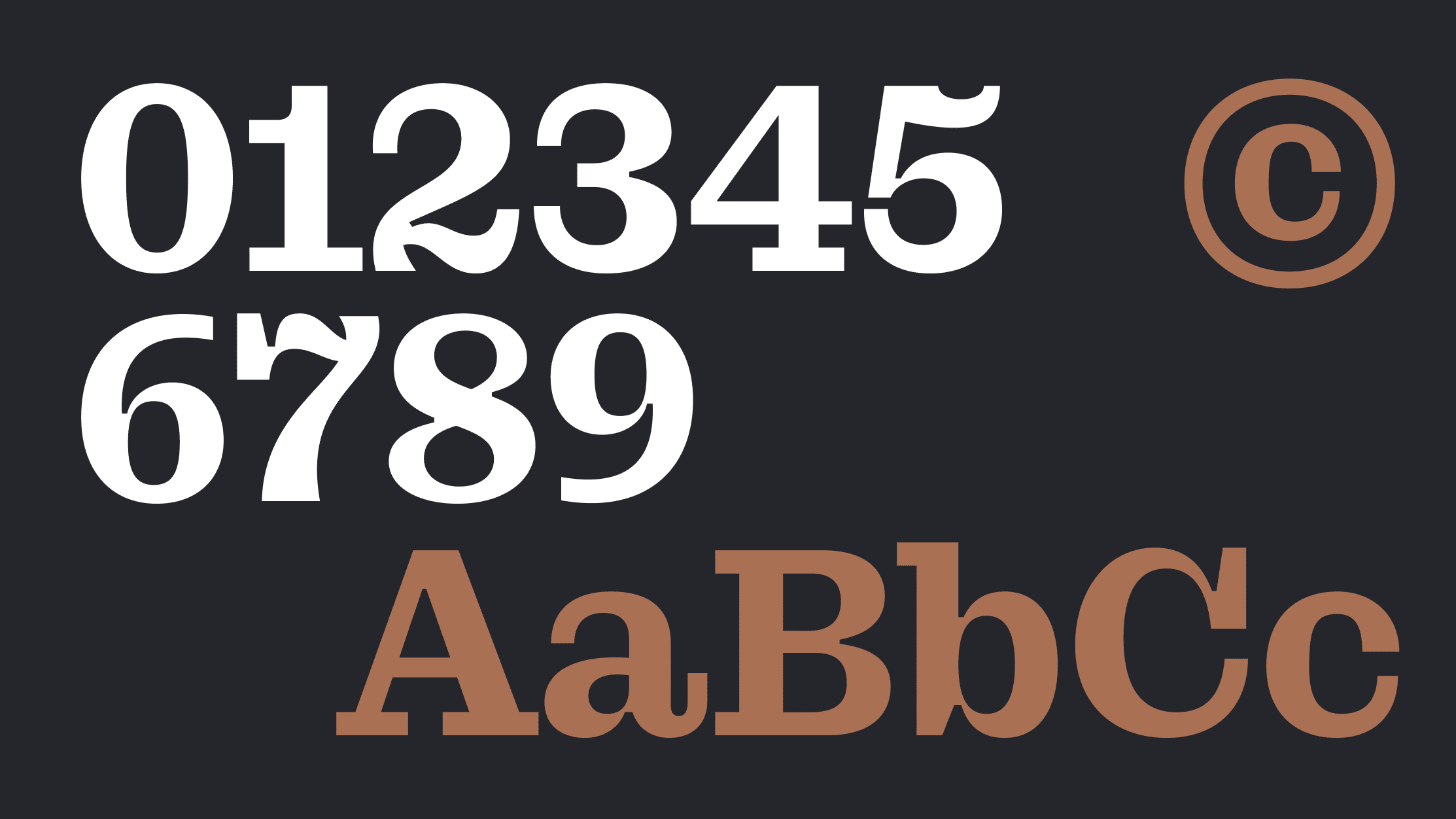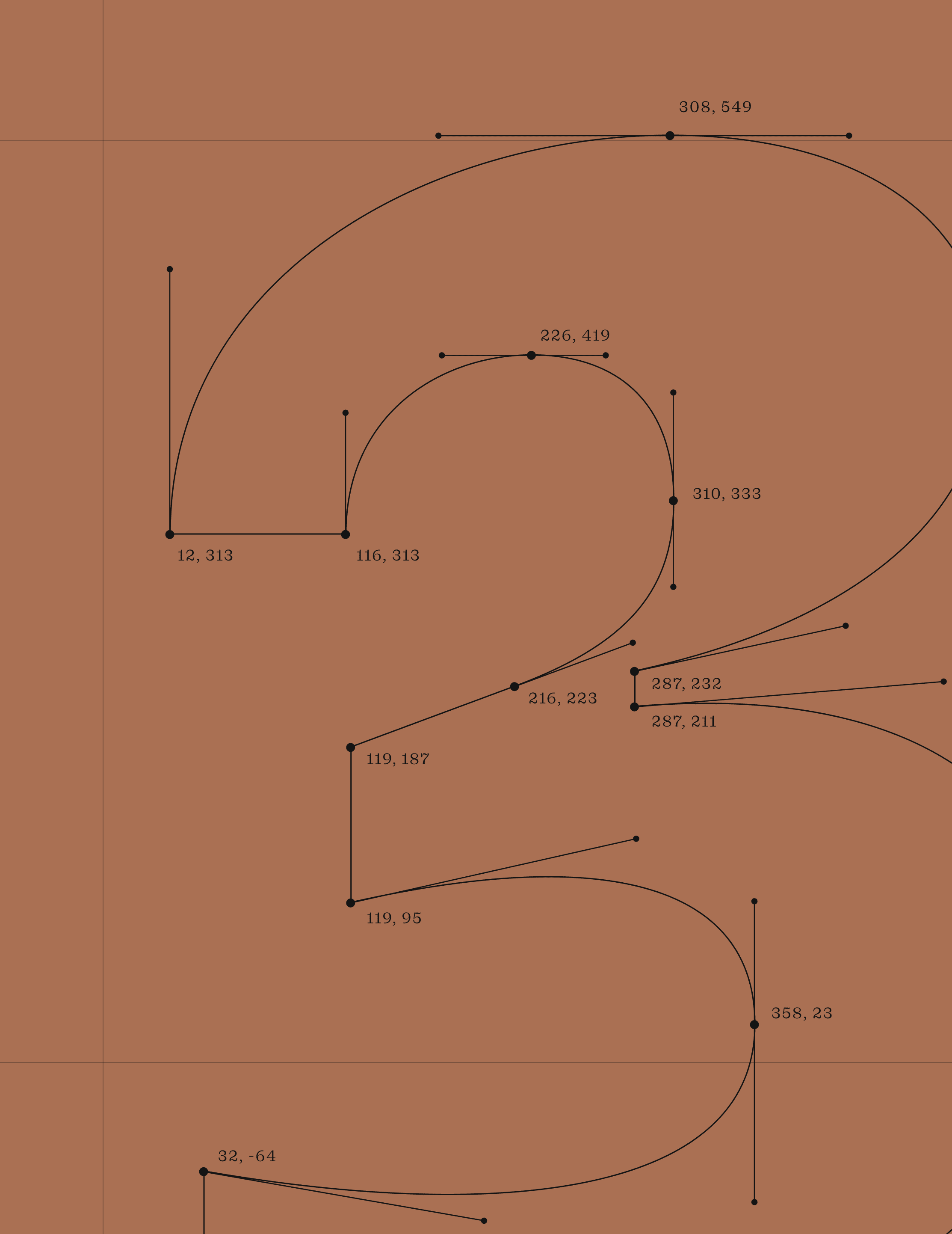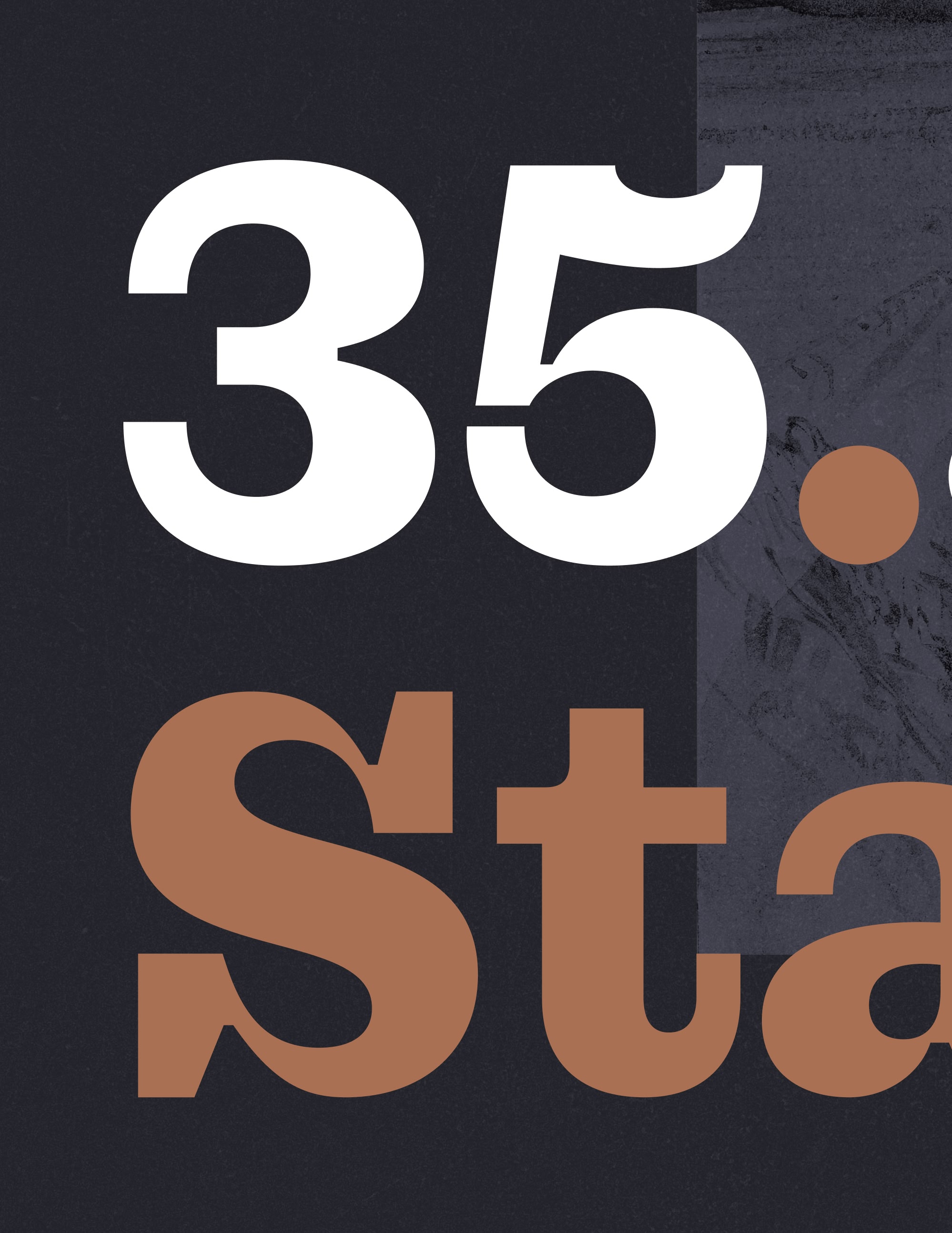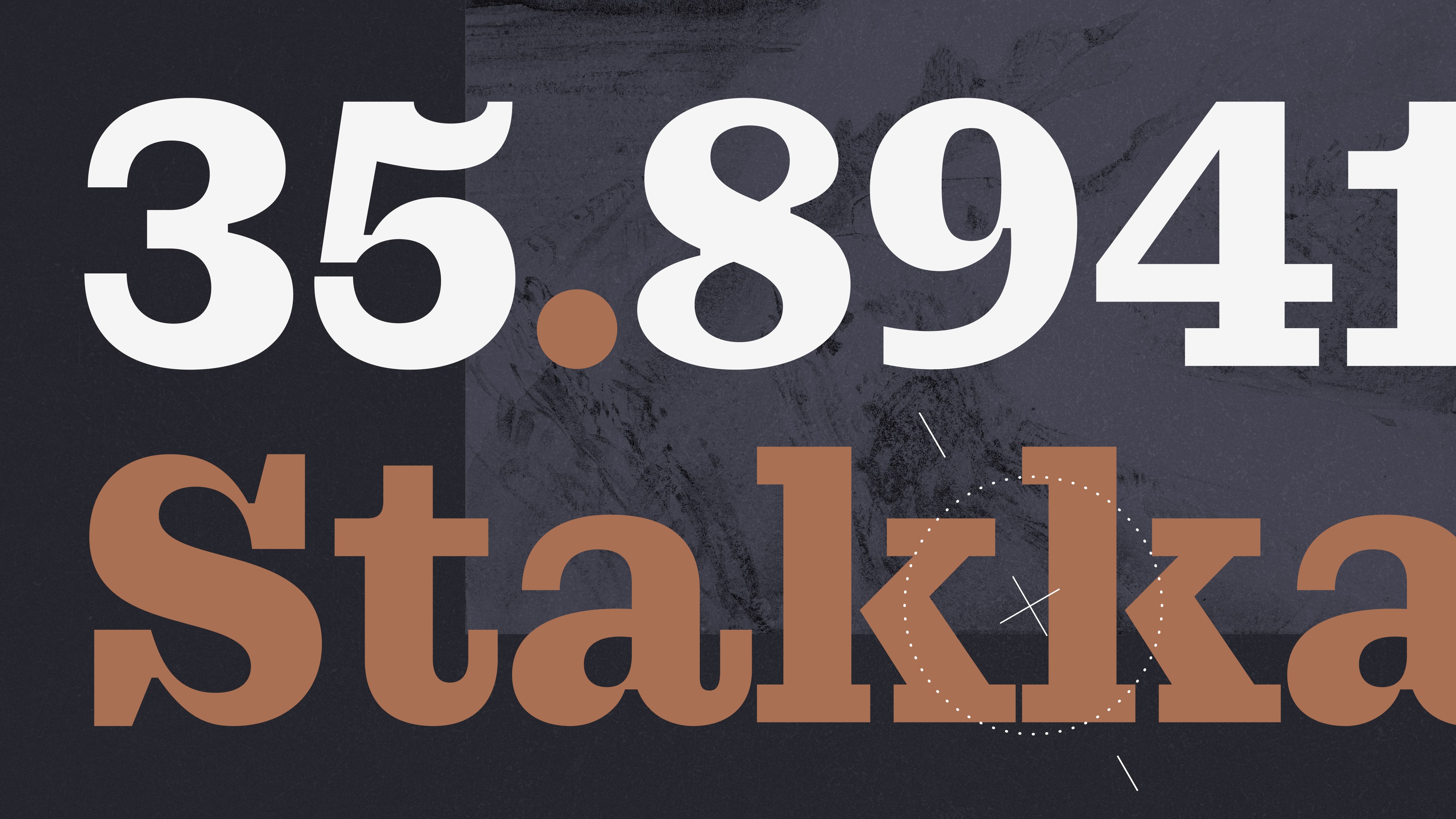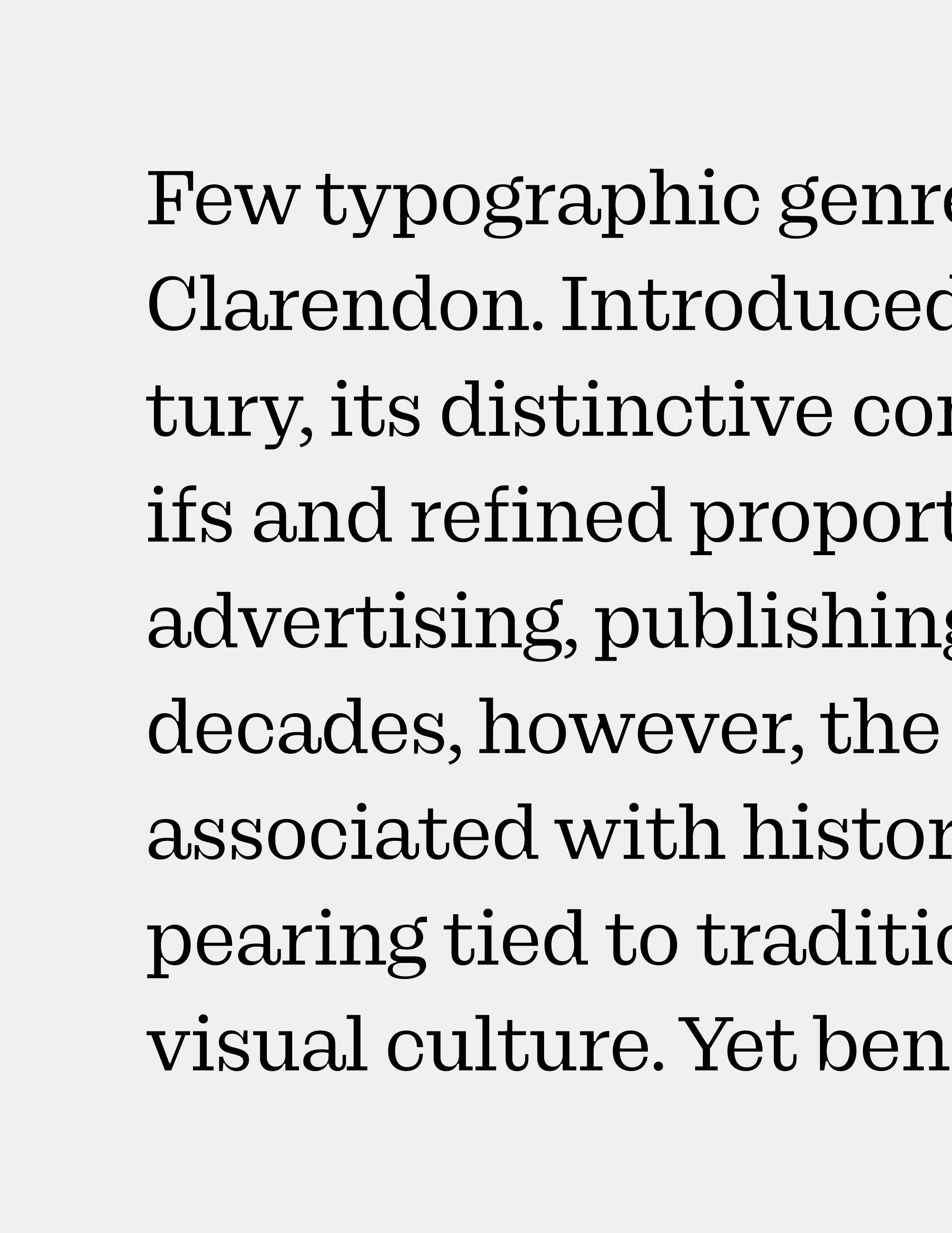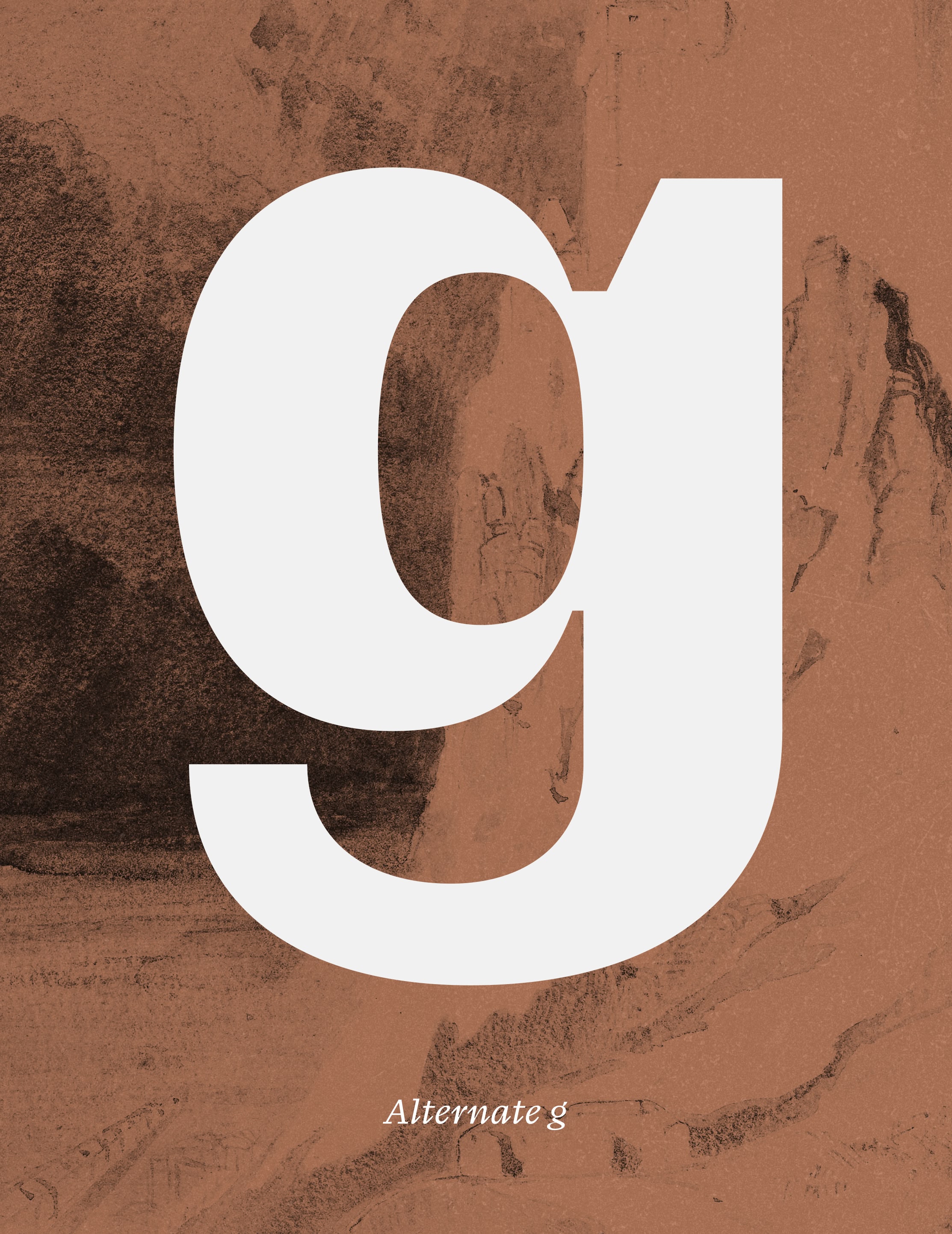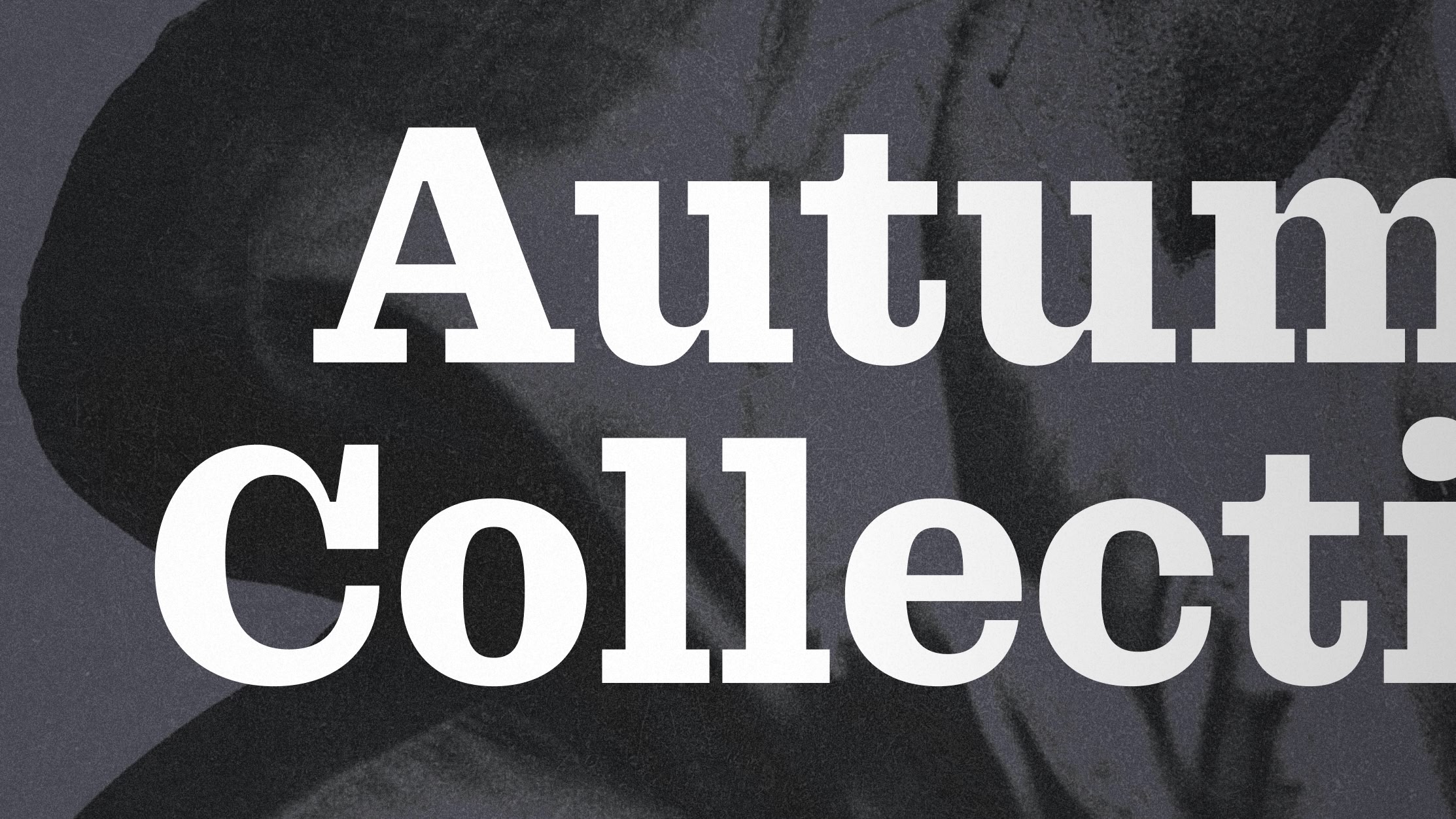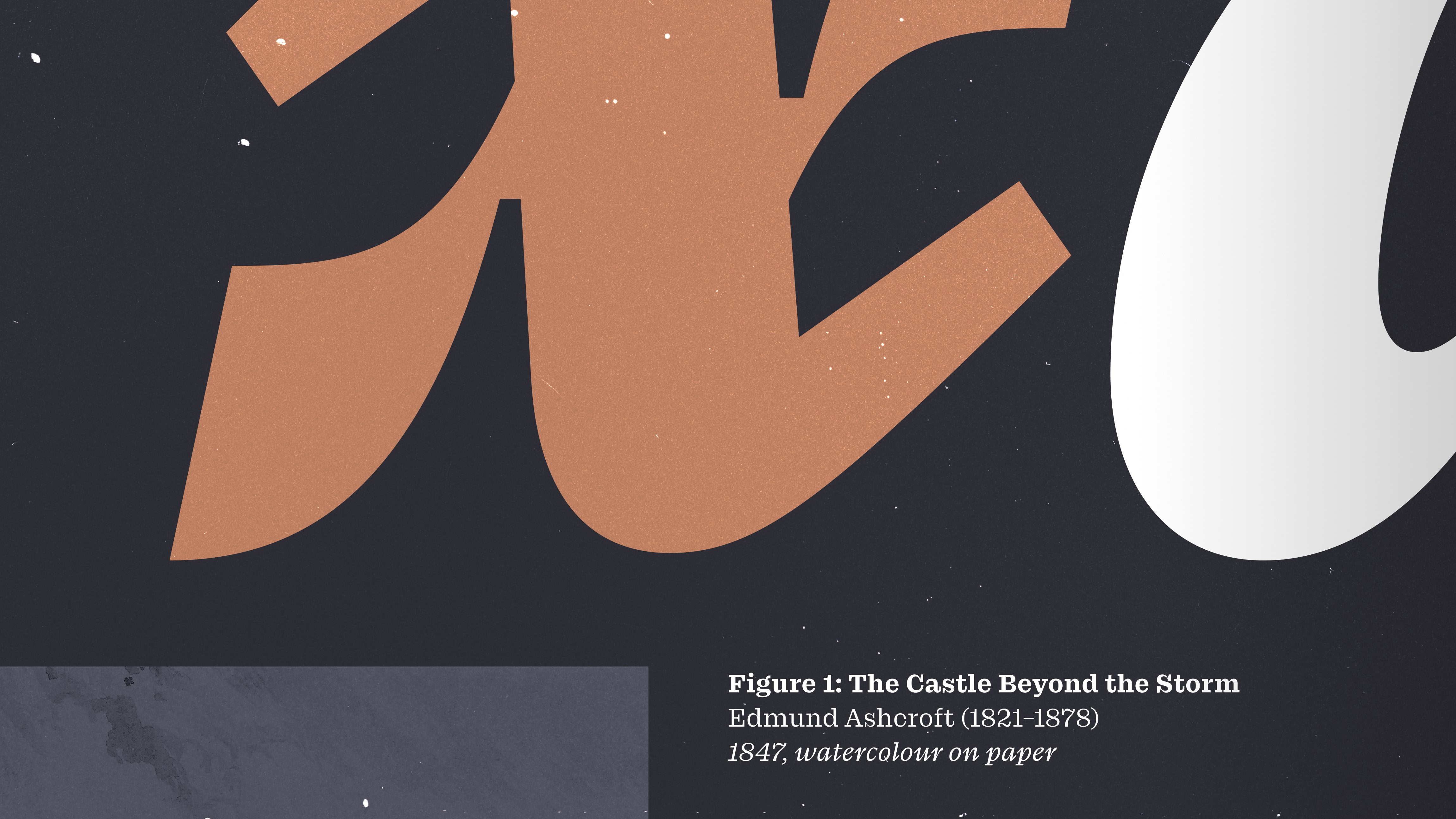
Stakkat revisits the Clarendon genre, refining its characteristic forms through sharper details, dynamic proportions, and expressive rhythm. Rooted in one of typography’s most influential slab serif traditions, the family balances historical substance with versatility and character.